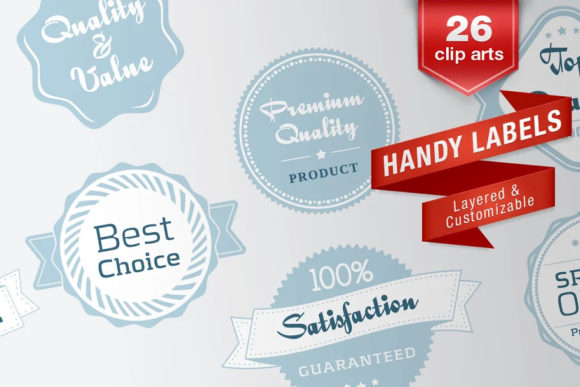
Step into a world of captivating labels, where every word holds power and every design speaks volumes. Unleash your creativity with Handy Labels Font, the ultimate dingbat font family that transforms your ideas into stunning visual masterpieces.
With Handy Labels, you'll discover a treasure trove of 26 unique and customizable vector clip arts, effortlessly accessible through a set of 3 fonts, each brimming with 52 glyphs. The possibilities are boundless, as you craft personalized tags, weave enchanting shopping sale designs, and unleash a symphony of discounts that leave an indelible mark.
Embark on a journey of limitless expression with Handy Labels Frames, where empty labels await your artistic touch. Divided into 2 distinct layers, these frames provide a canvas for your creativity, allowing you to effortlessly blend multiple colors and transform your designs into vibrant works of art.
Unearth the magic of Handy Labels Texts, a font duo that grants you the power to convert fonts into vector outlines. Unleash your imagination and explore a universe of endless editing possibilities, where every stroke and curve becomes a testament to your unique style.
Handy Labels is more than just a font; it's a gateway to a world of boundless creativity. Whether you're a seasoned designer or just starting your artistic journey, this font family will ignite your passion and empower you to create captivating designs that resonate with your audience.
Don't settle for ordinary; embrace the extraordinary with Handy Labels Font. Let your imagination soar, let your creativity flourish, and let your designs leave a lasting impression that captivates and inspires.